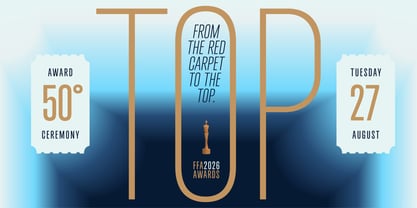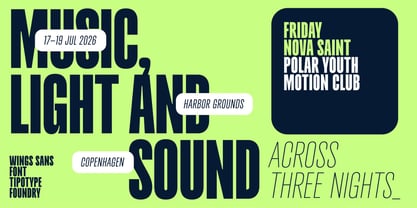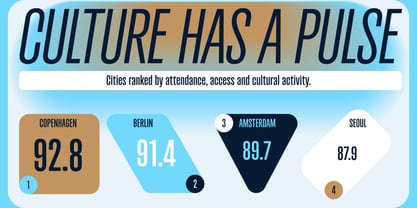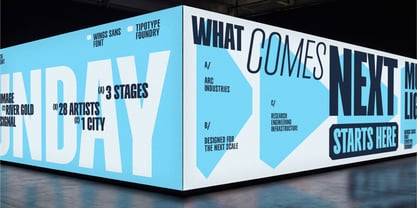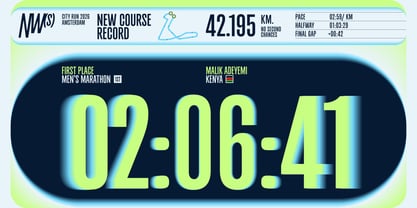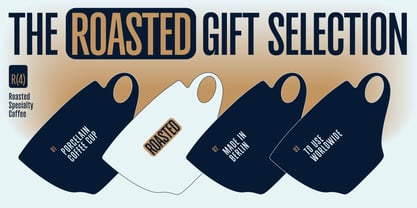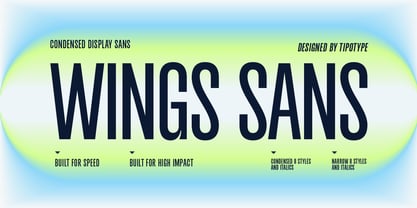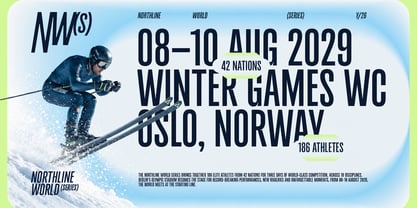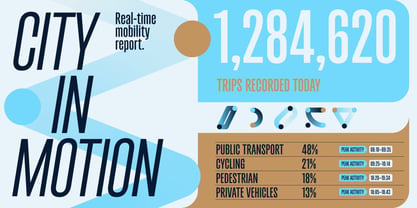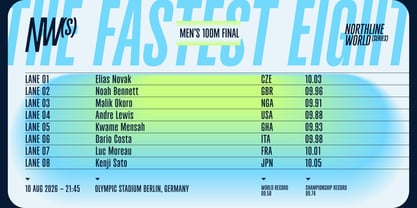
Wings Sans
by TipoType
Wings Sans is a condensed display typeface that builds its presence through subtle contrast and a strong rhythm.
Condensed typefaces hold a particular place in design history. From wood type used in posters and press headlines to advertising, sports graphics, and contemporary identity systems, narrow proportions have been used whenever type needs to stand out, hold a strong vertical rhythm, and capture attention.
Wings belongs to that tradition and updates it with a contemporary language.
Its condensed proportions create a distinctive texture, while controlled widths and spacing keep words compact without feeling forced. The result is a typeface with a strong presence, building dense, expressive compositions that stand out especially at large sizes.
There’s a sense of movement in its forms. Its proportions and tight rhythm give words an almost kinetic quality, particularly in headlines, sequences, and stacked compositions.
Wings Sans is designed for identities, posters, editorial projects, packaging, and sports and entertainment graphics — in general, for contexts where typography plays the leading role.